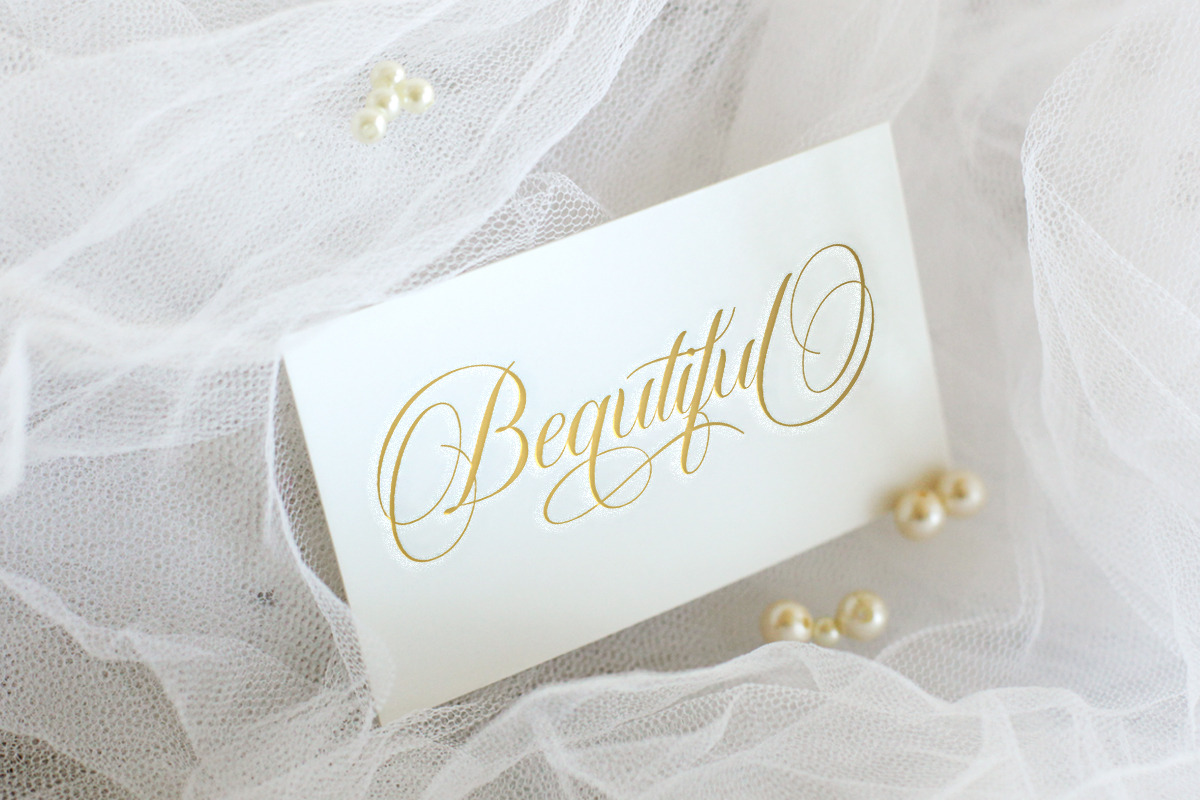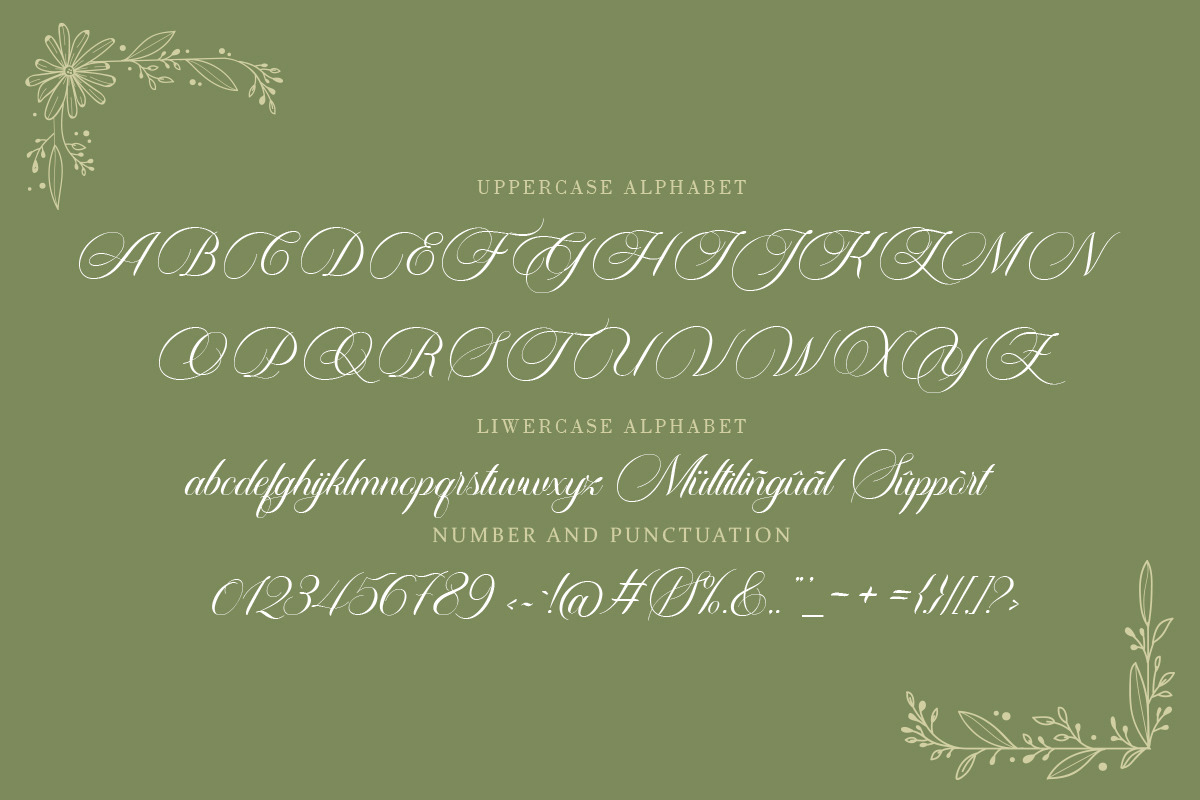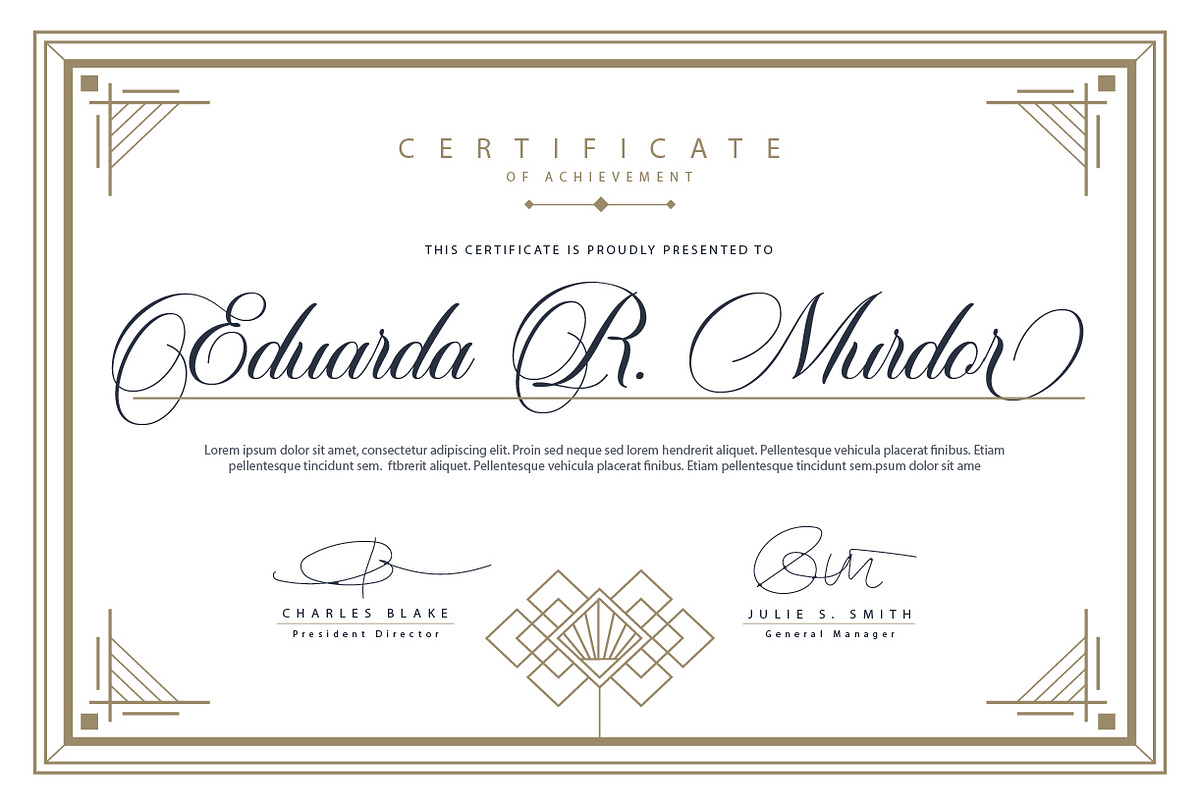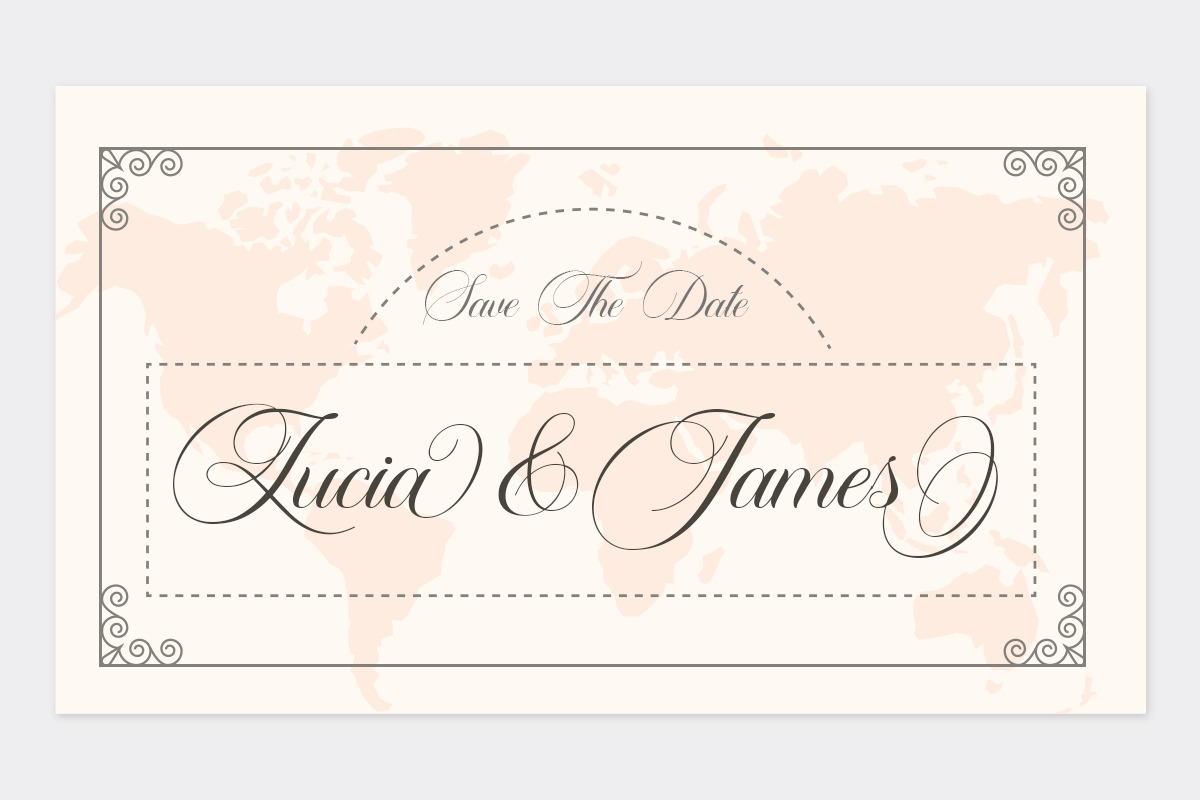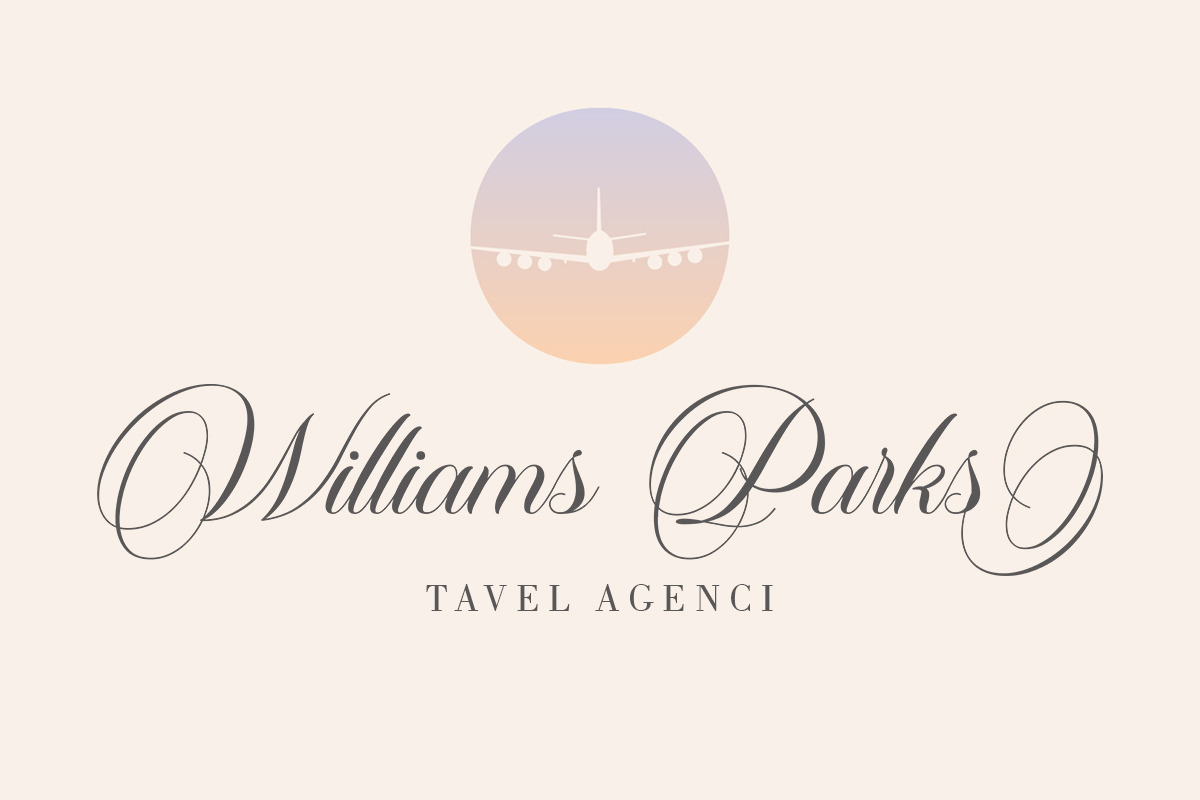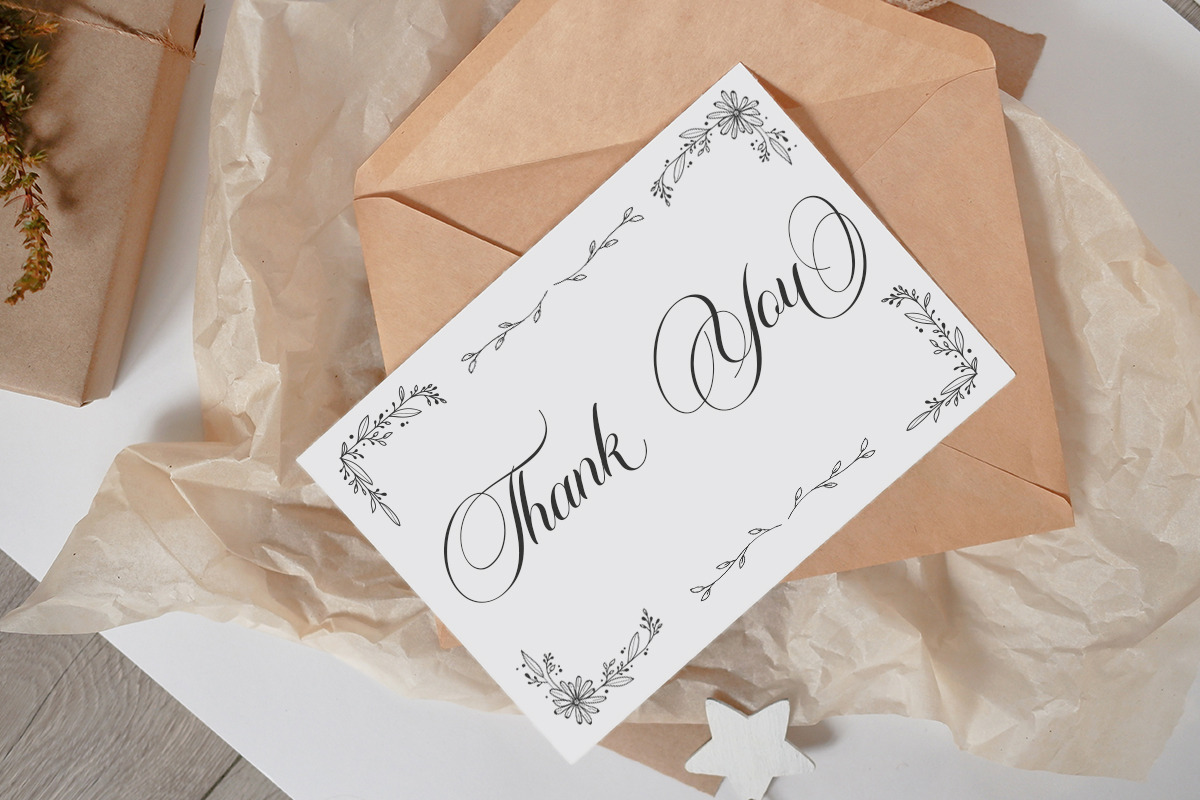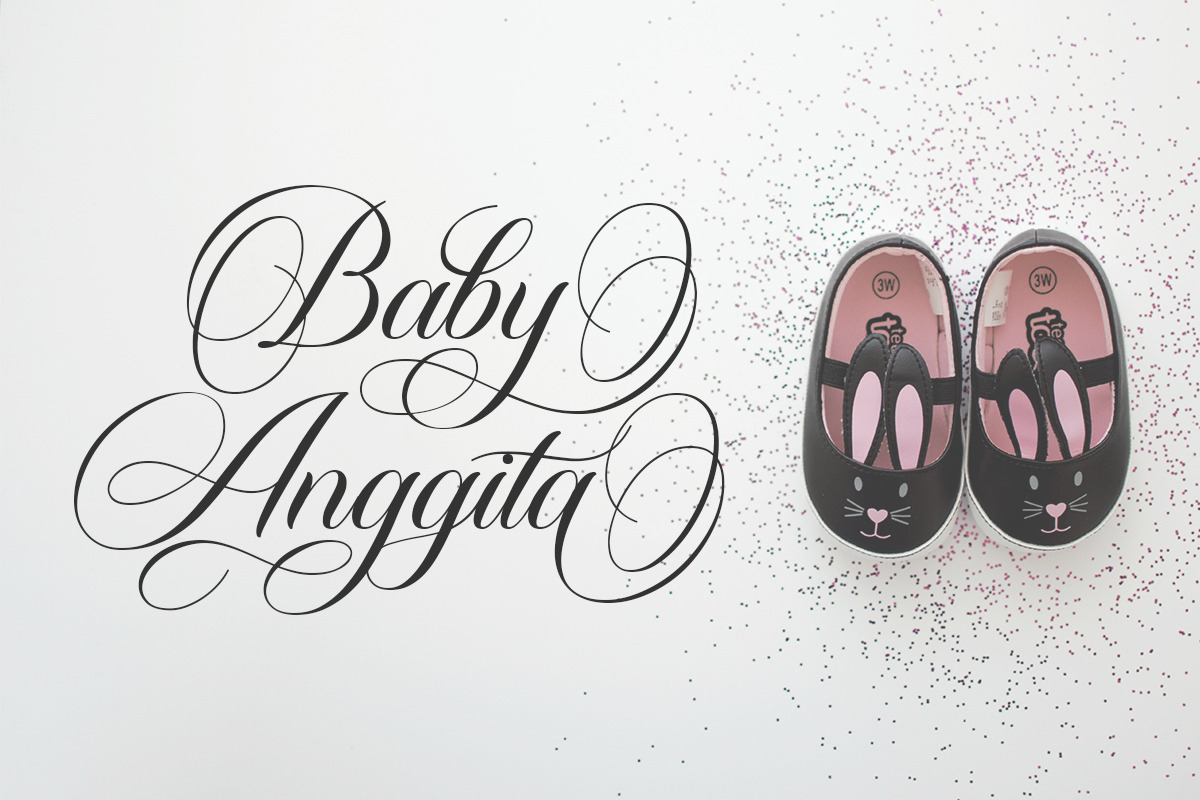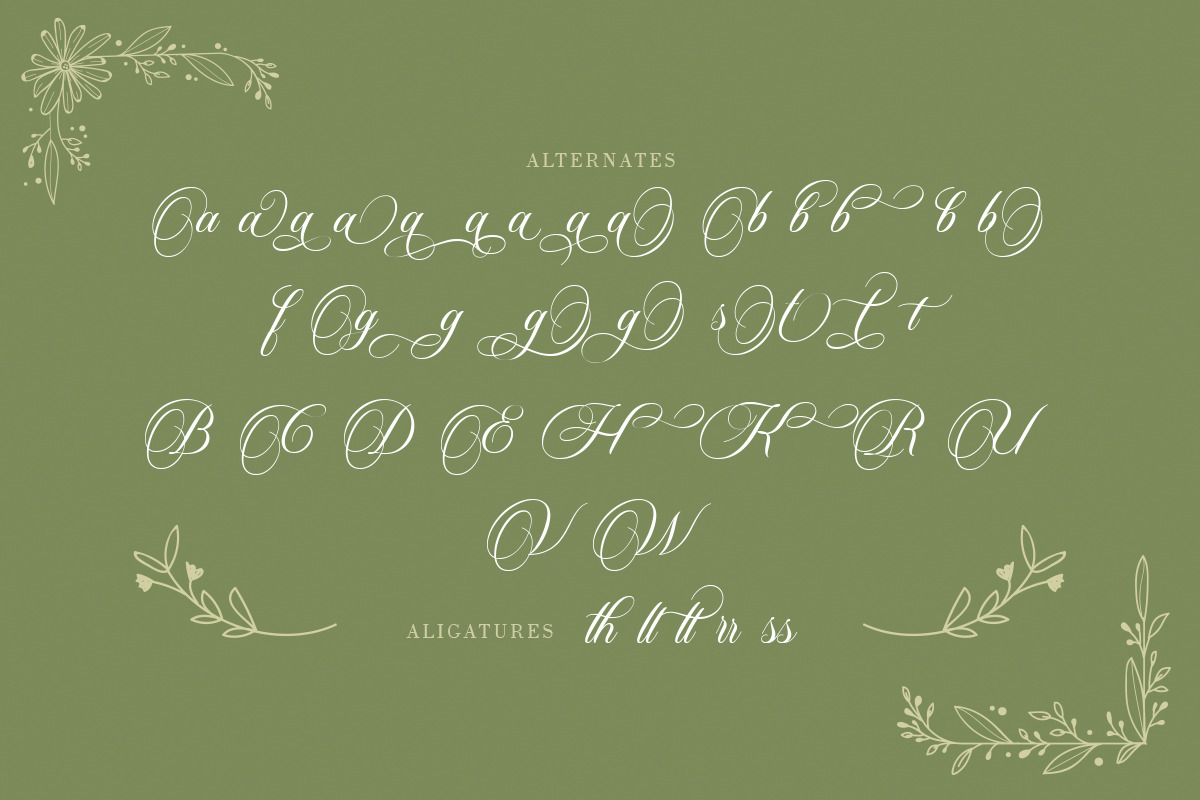
Carista Calligraphy
Carista Calligraphy is a classic font, I made it with my relaxed hand. Designing a classic font but has a modern element to it, which makes it perfect for wedding media, book covers, greeting cards, logos, branding, business cards and certificates, even for any design work that requires classic, formal or fancy.
Try Carista Calligraphy, enjoy the wealth of OpenType features and let its elegant fun and joy make you happy and boost your creativity! You can use this font very easily.
Includes multilingual support and binders
There are many features in it. Contains a full set of lowercase and uppercase letters, punctuation, numbers, and multilingual support. This font also includes several ligatures and alternative Stylistic Set styles for those of you who have software capable of working with OpenType (Corel Draw/Photoshop/Ilustrator/InDesign).